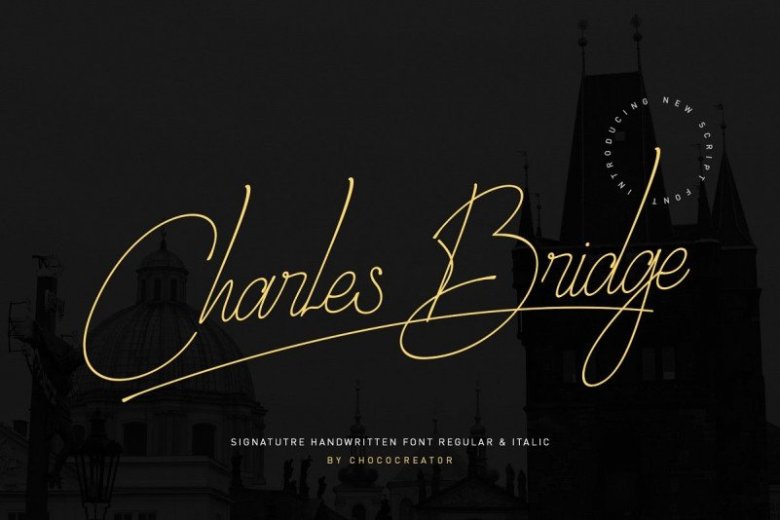
Charles Bridge Font
Charles Bridge Handwritten Font, designed by Chococreator is a stylish beautiful Handwritten typeface with a chic casual flair. It’s perfect for branding, wedding invitations and cards, and maybe for red wine labels.
Charles Bridge includes a complete set of beautiful upper and lowercase letters, numbers, various kinds of punctuation and supports multiple languages ​​with 2 types, namely regular and italic. All letters provide a realistic handwritten style.